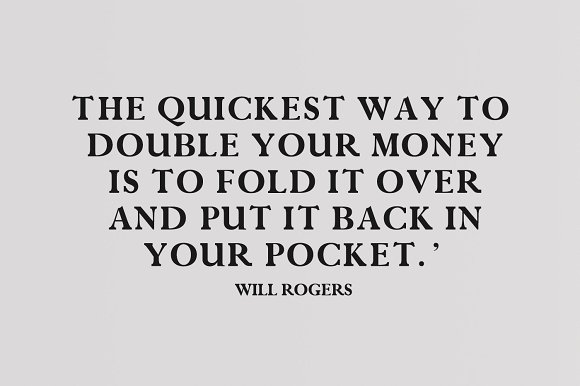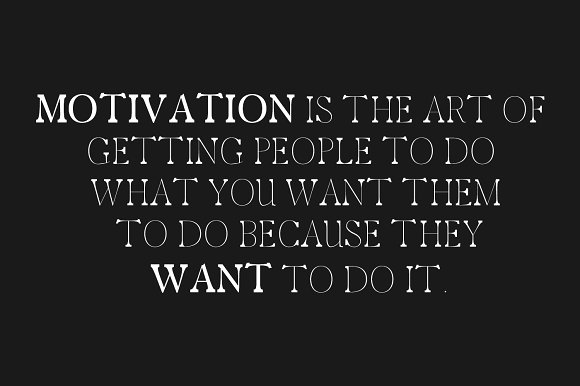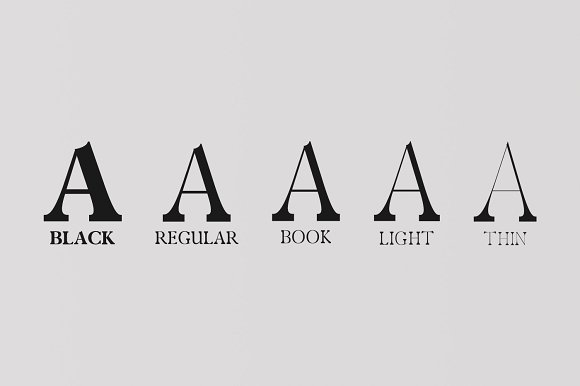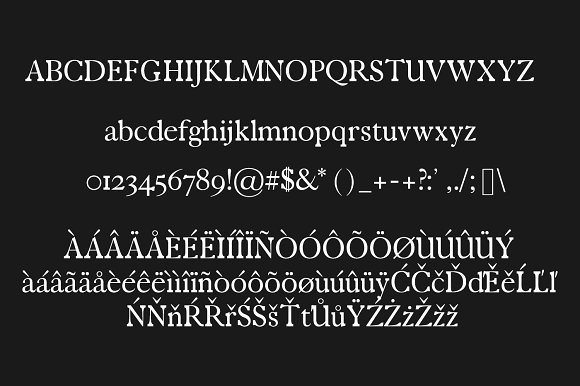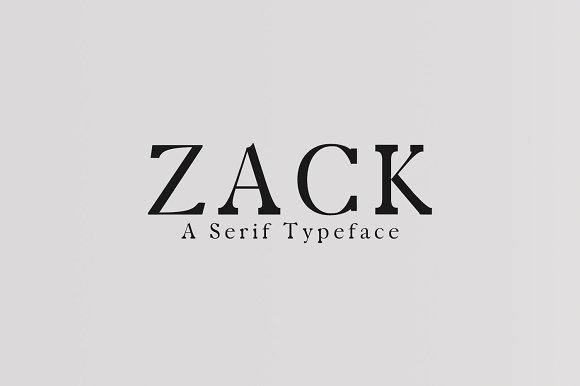
Zack Serif Typeface
Zack serif font is a set of 4 weights and it is good for making creative displays and it has art-deco touch. It’s a lovely and unique serif font in our store, allowing you to make each word look completely stylish! It Suits best for modern / clean designs, logos, headlines, banners and templates etc. It looks gorgeous in all caps with a wide-set spacing if you want to try a classy look, or beautiful on its own in capital and lowercase letters for something completely timeless.